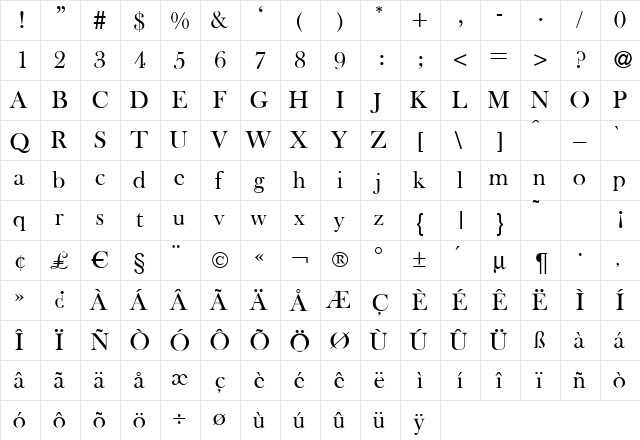
BaskervilleOldStyle Regular
Design Context for BaskervilleOldStyle Typeface
BaskervilleOldStyle brings classic typographic sensibility to the table — its serifs and measured letterforms reflect centuries of print heritage.
Pro Tip: Set BaskervilleOldStyle with slightly loose tracking in headlines to let each letterform's detail read clearly at display sizes.